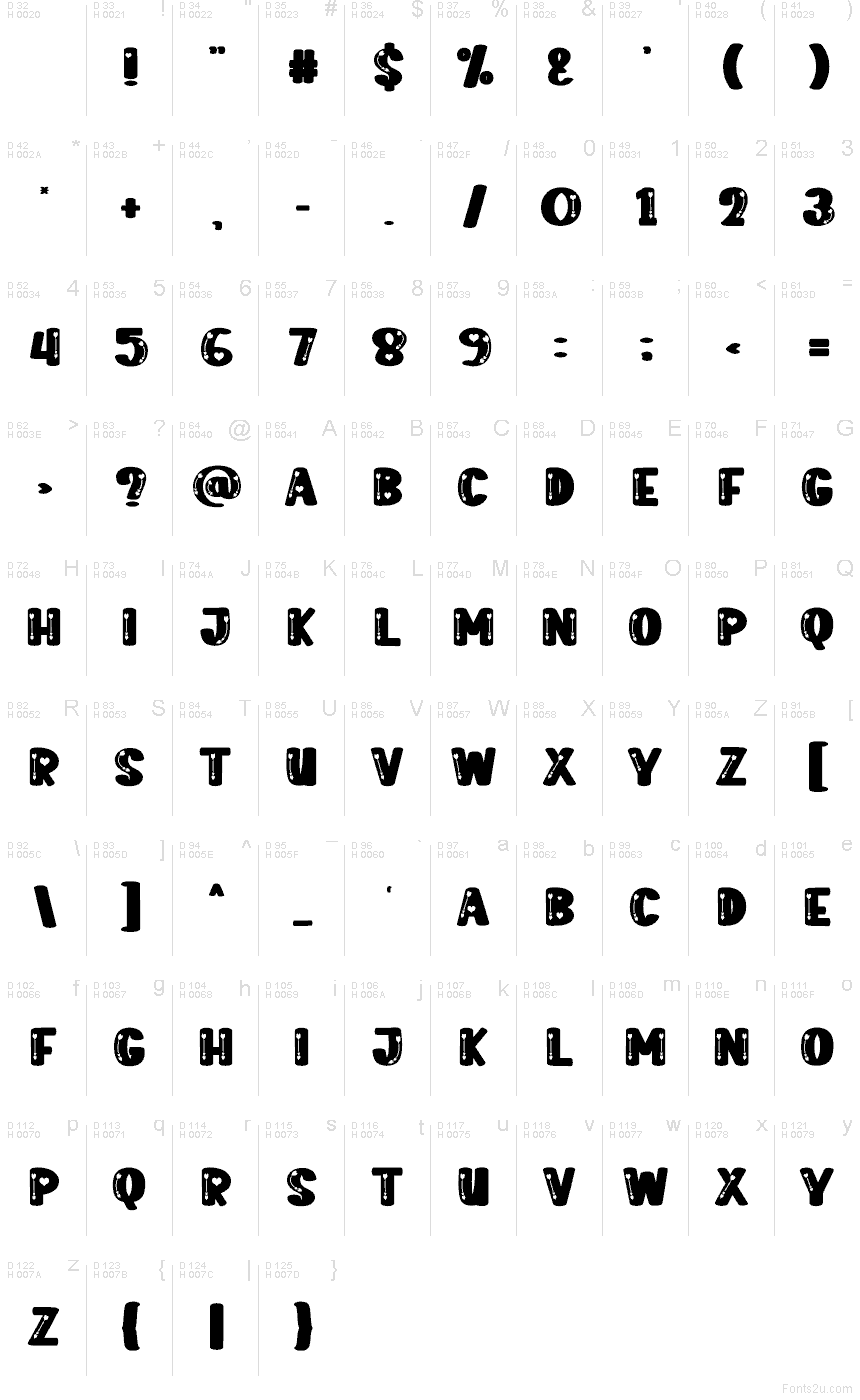
Love Bride
Love Bride font by Scratchones is a free decorative valentine typeface that wears its heart on every letter. Bold, chunky forms are punched through with crisp heart shapes and soft, rounded edges, giving it a candy-like, hand-cut feel. The tight spacing and solid weight make words look like a single, bubbly graphic—easy to read from a distance, but still sweet up close.
Using Love Bride, your titles snap instantly into “romance mode,” so it shines on wedding signage, Valentine’s cards, engagement announcements, party invitations, scrapbook pages, and cute gift tags. This free font really pops at larger sizes; pair it with a clean, simple sans-serif for body text to keep all that sugary charm balanced and readable.